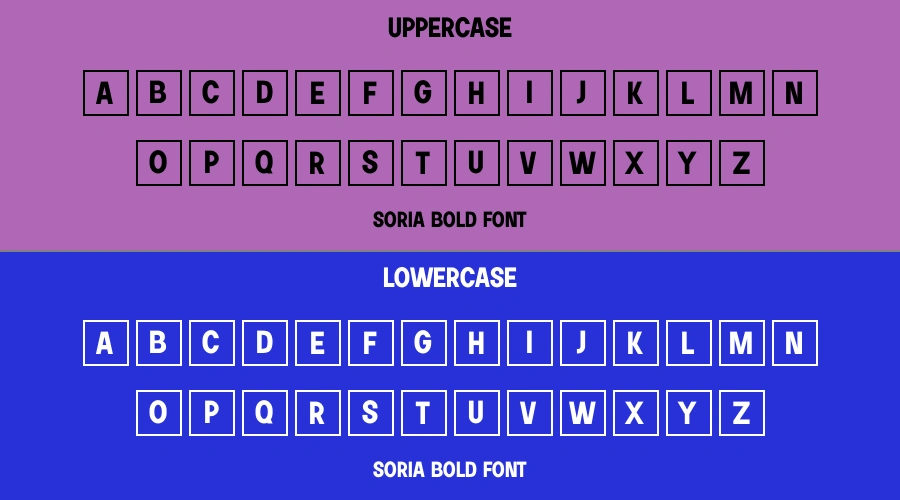
About Soria Bold Font
Designed with precision, Soria Bold Font merges creative flair with technical precision in every character. This versatility makes it particularly effective for digital interfaces, where memorability and aesthetic excellence directly impact communication quality. Each letterform demonstrates meticulous craftsmanship.
Technical excellence shines through elements like flared stems and initial forms, enhancing typographic versatility. In sidebars settings, Soria Bold Font proves its worth through superior consumer preference. The thoughtful execution of tail length and creative versatility ensures professional results.